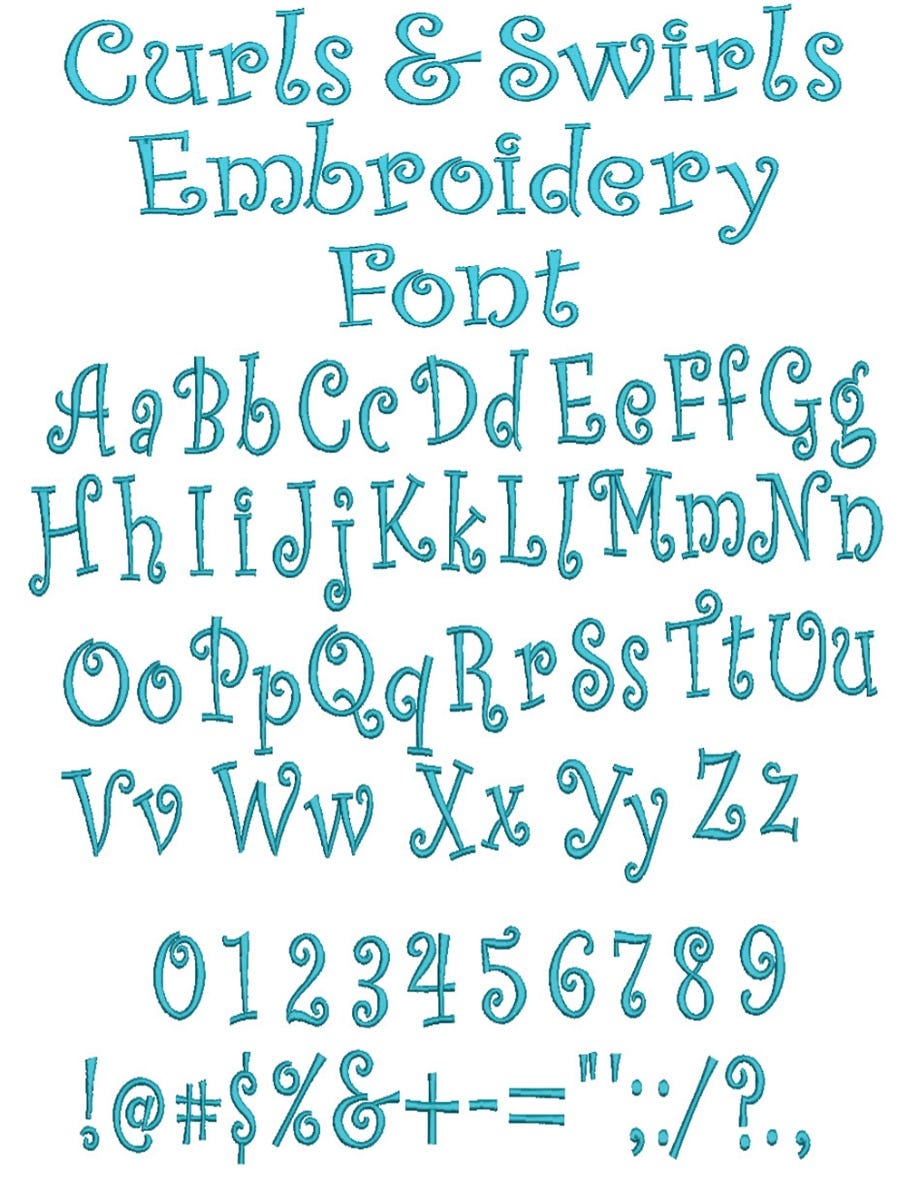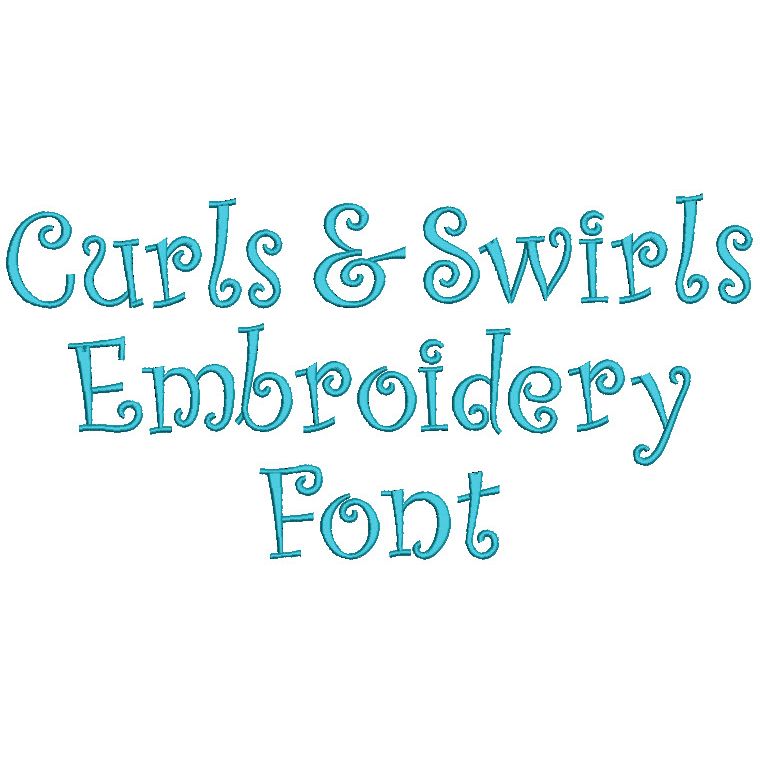
Curls and Swirls Satin Stitch Embroidery Font
Introducing our Curls and Swirls Embroidery Font, a fancy font with swirls that adds an elegant touch to any embroidery project. This curly font alphabet features swirls at the beginning and end of each letter, making it perfect for those seeking fonts with swirls on letters to enhance their designs.
This font with swirls is ideal for personalizing a wide range of items—from clothing and accessories to home décor. Whether you're creating monograms, names, or inspirational phrases, this script font with swirls will make your projects stand out with its elegant and stylish design. Don't miss out on adding this fancy font with swirls to your embroidery font collection!